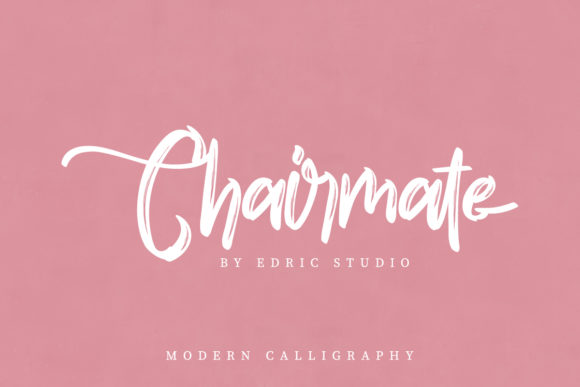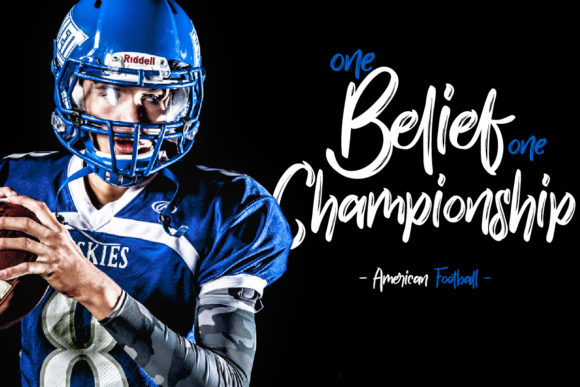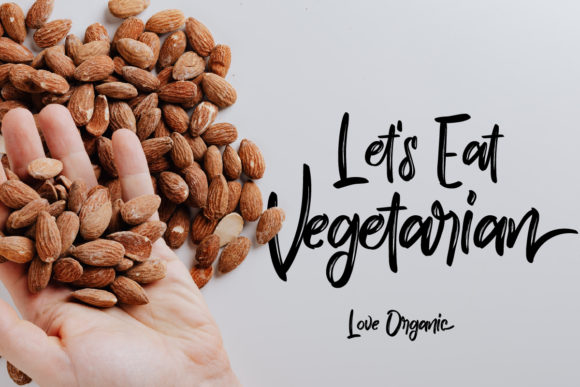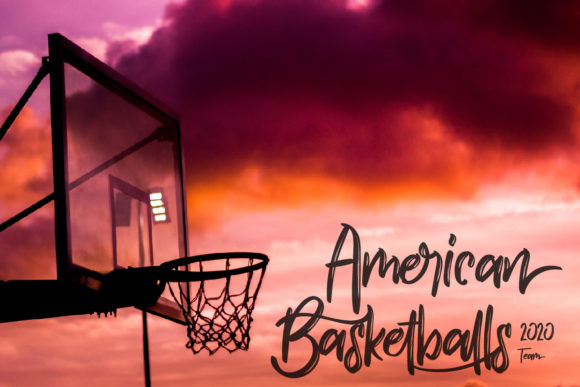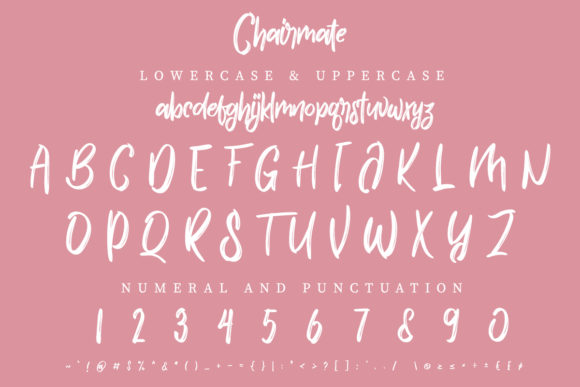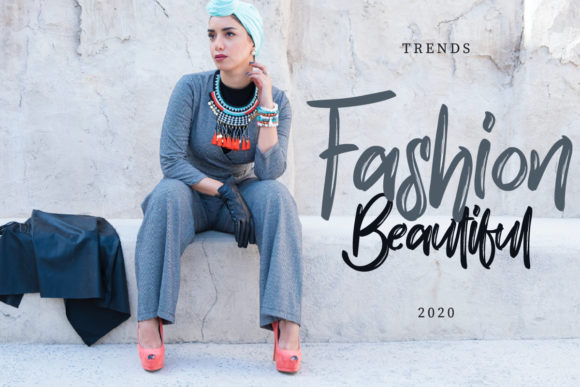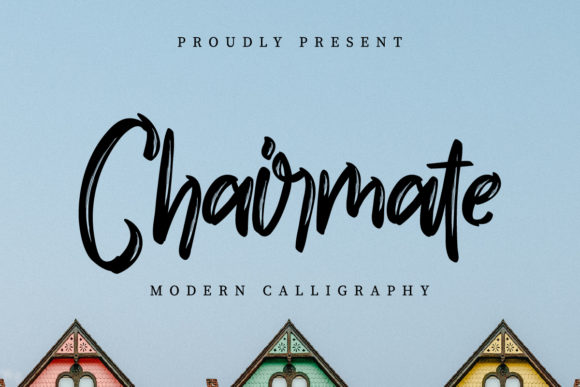
Introducing Chairmate Font: The Perfect Handwritten Touch for Your Designs
Are you looking for a beautiful and unique handwritten font to add a personal touch to your designs? Look no further than Chairmate Font! Created with the help of an outstanding brush pen, Chairmate is a stunning font that is perfect for a variety of design projects, from wedding invitations and thank you cards to quotes, greeting cards, logos, and business cards.
What Makes Chairmate Font So Special?
Chairmate Font is a true gem in the world of typography. Its unique and elegant handwritten style is sure to capture the attention of your audience and leave a lasting impression. Here are just a few features that make Chairmate Font so special:
- Beautiful Handwritten Style: Chairmate Font is created with the help of a brush pen, giving it a smooth and natural look that is reminiscent of handwritten script.
- Varying Baseline: Chairmate Font features a varying baseline, which gives it a sense of movement and energy. This makes it perfect for designs that need a dynamic and playful touch.
- Smooth Lines and Gorgeous Glyphs: Chairmate Font is characterized by smooth lines and gorgeous glyphs, which make it a joy to use in your designs.
- Stunning Alternates: Chairmate Font comes with stunning alternates, which give you even more options for customizing your designs.
Chairmate Font is a versatile font that can be used in a variety of design projects. Here are just a few ideas to get you started:
- Wedding Invitations: Chairmate Font is perfect for wedding invitations, adding a romantic and elegant touch to your designs.
- Thank You Cards: Use Chairmate Font to create beautiful and heartfelt thank you cards that will make your recipients feel special.
- Quotes and Greeting Cards: Chairmate Font is great for quotes and greeting cards, adding a personal and emotional touch to your designs.
- Logos and Business Cards: Chairmate Font can also be used to create stunning logos and business cards that will help you stand out from the crowd.
Why Choose Chairmate Font?
- Unique and Elegant Style: Chairmate Font has a unique and elegant style that will add a touch of sophistication to your designs.
- High-Quality Design: Chairmate Font is designed with high-quality craftsmanship, ensuring that it will look great in any design.